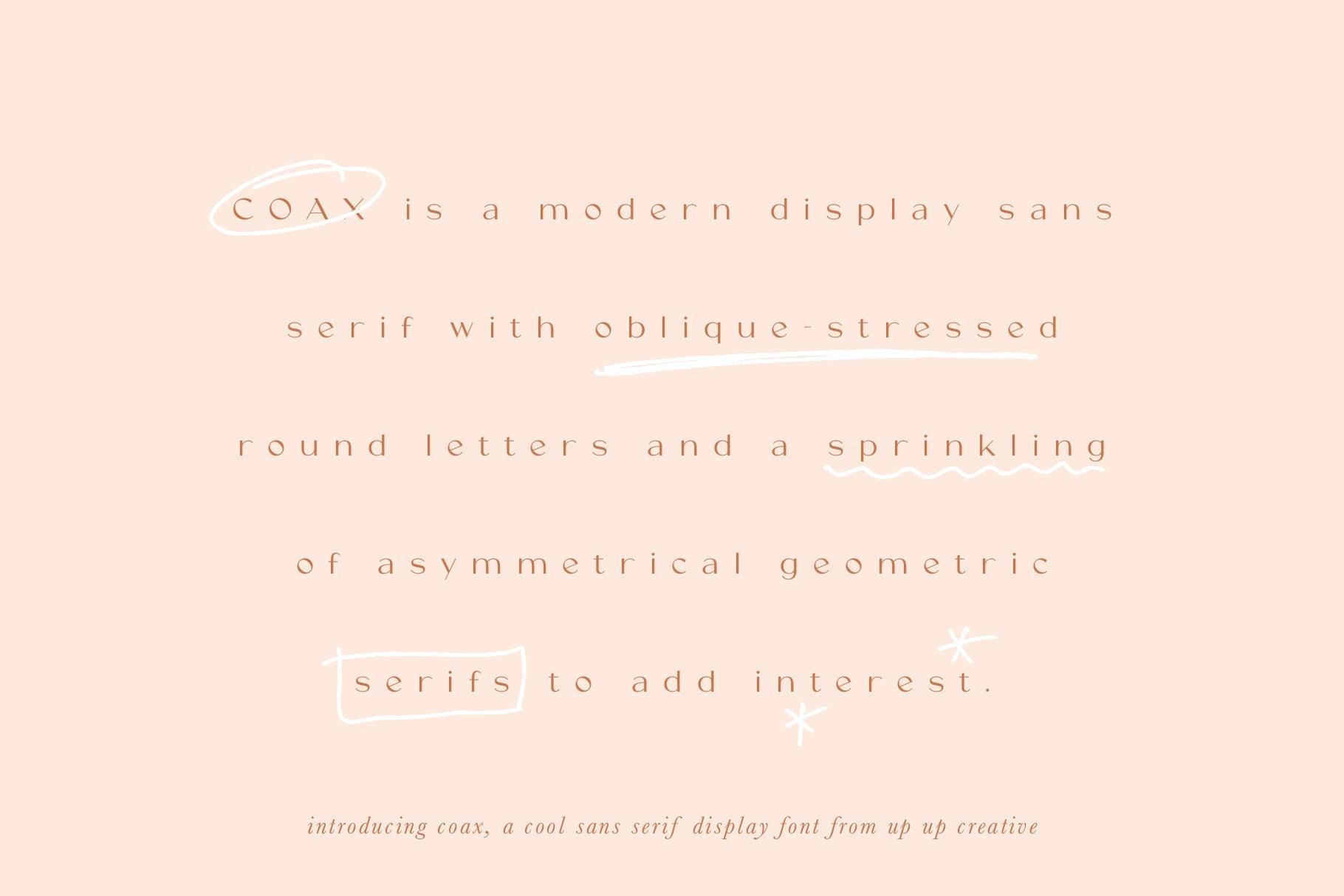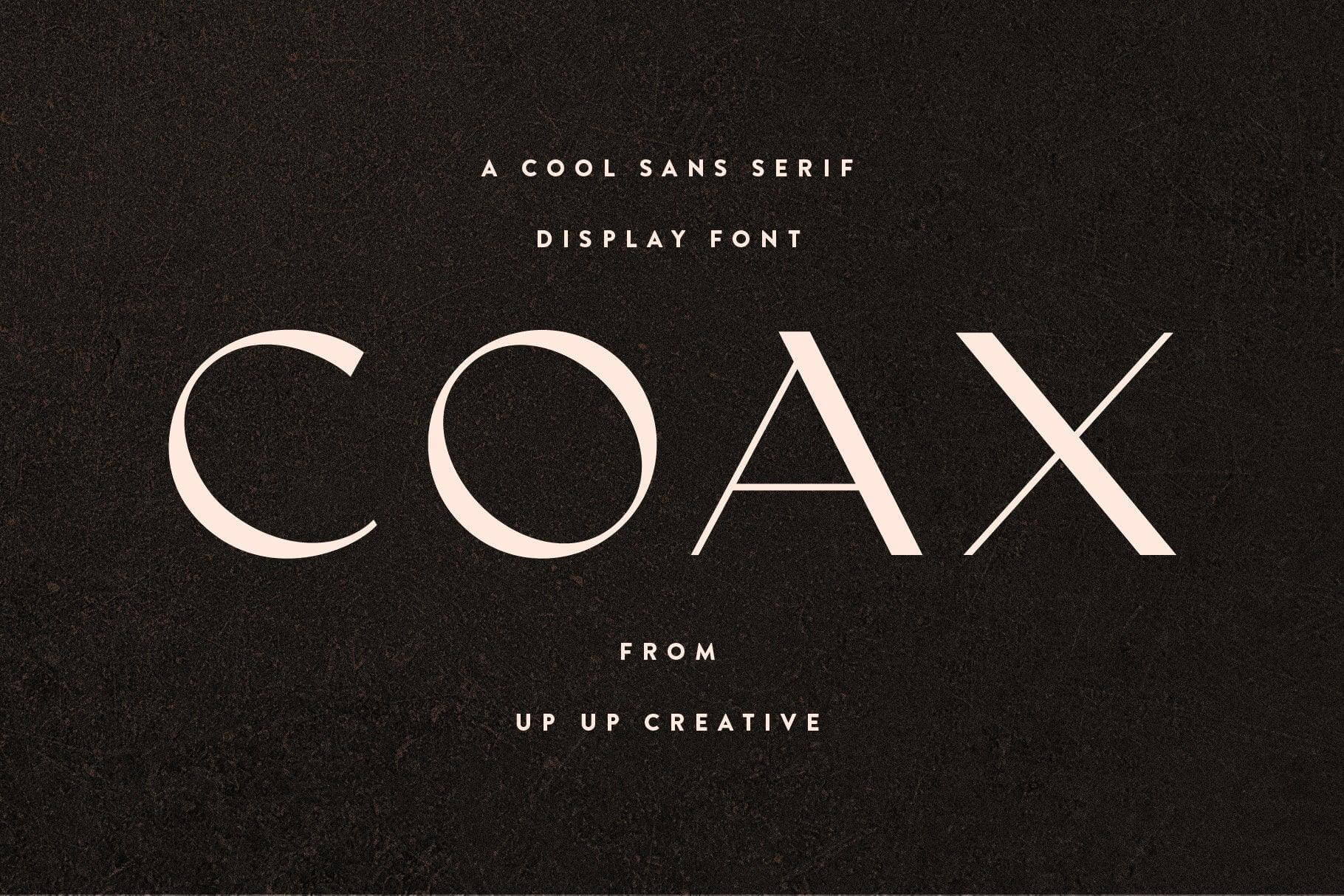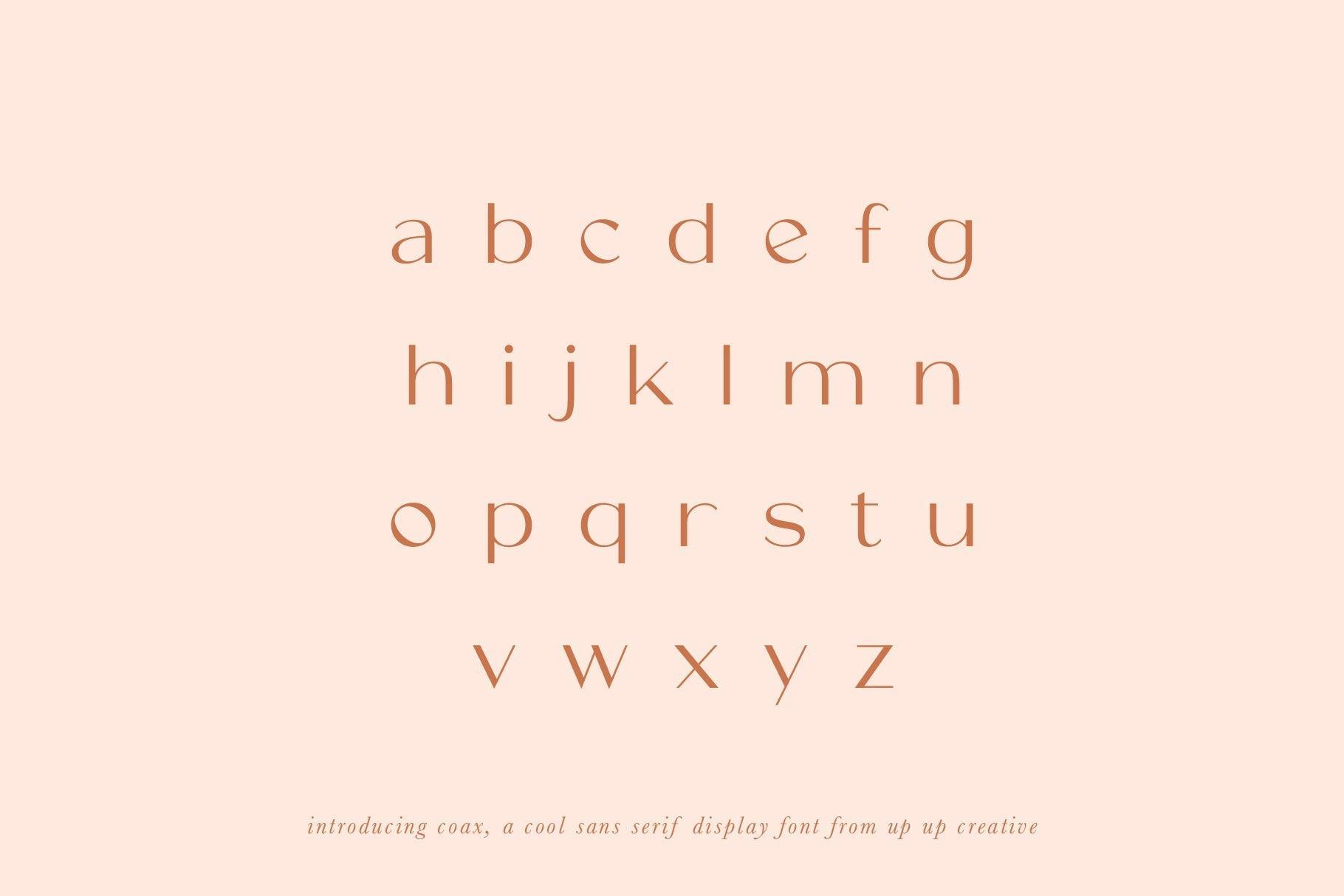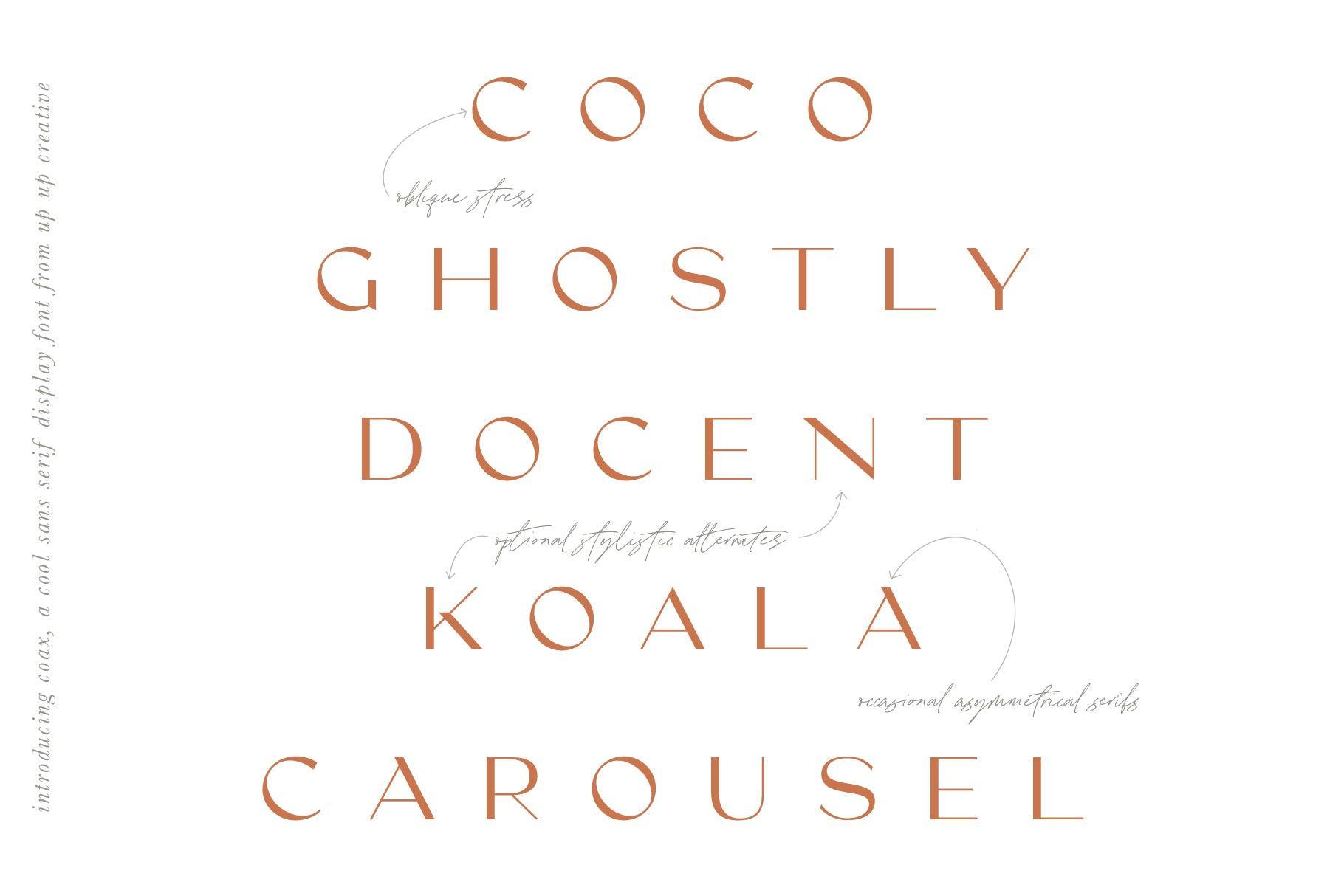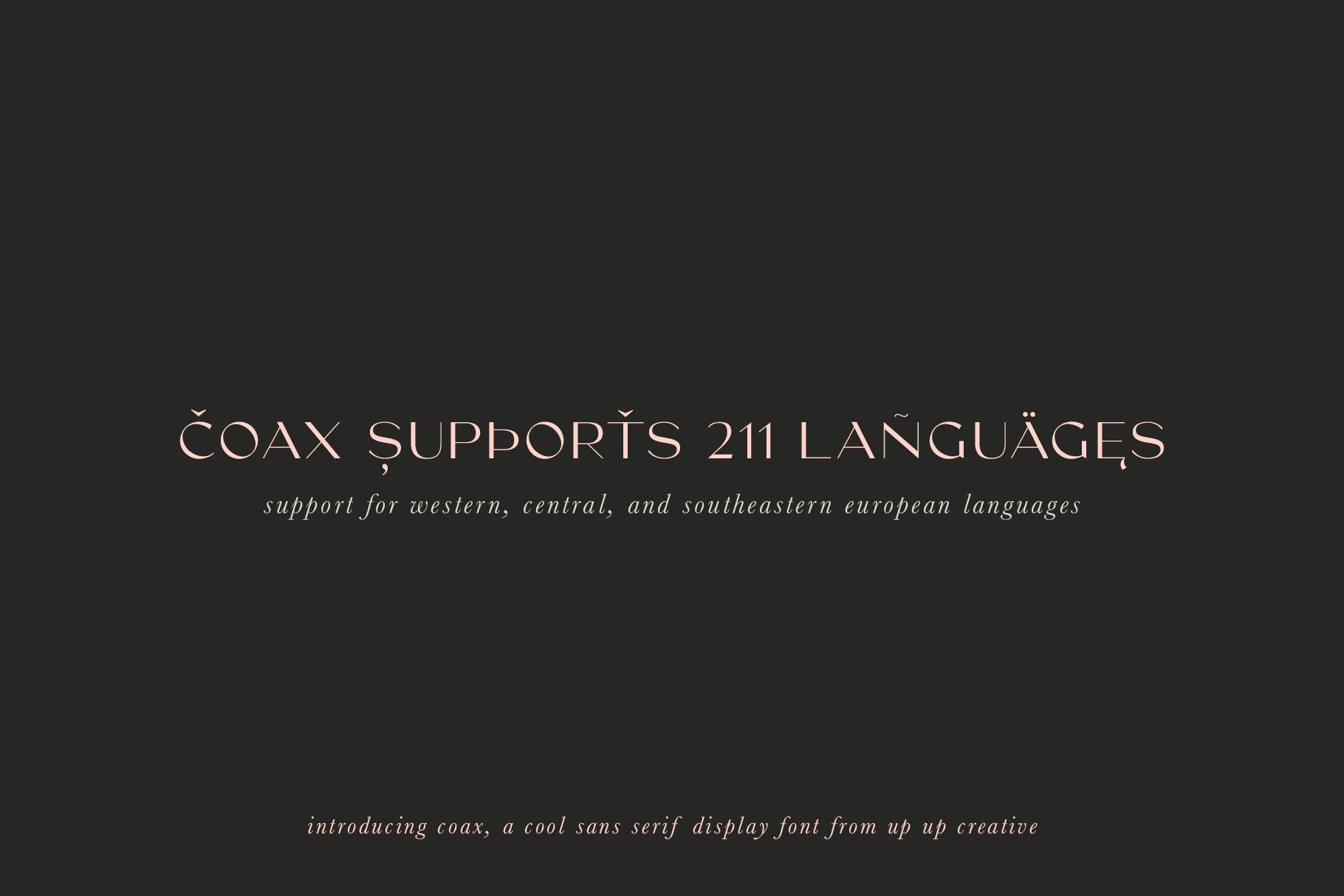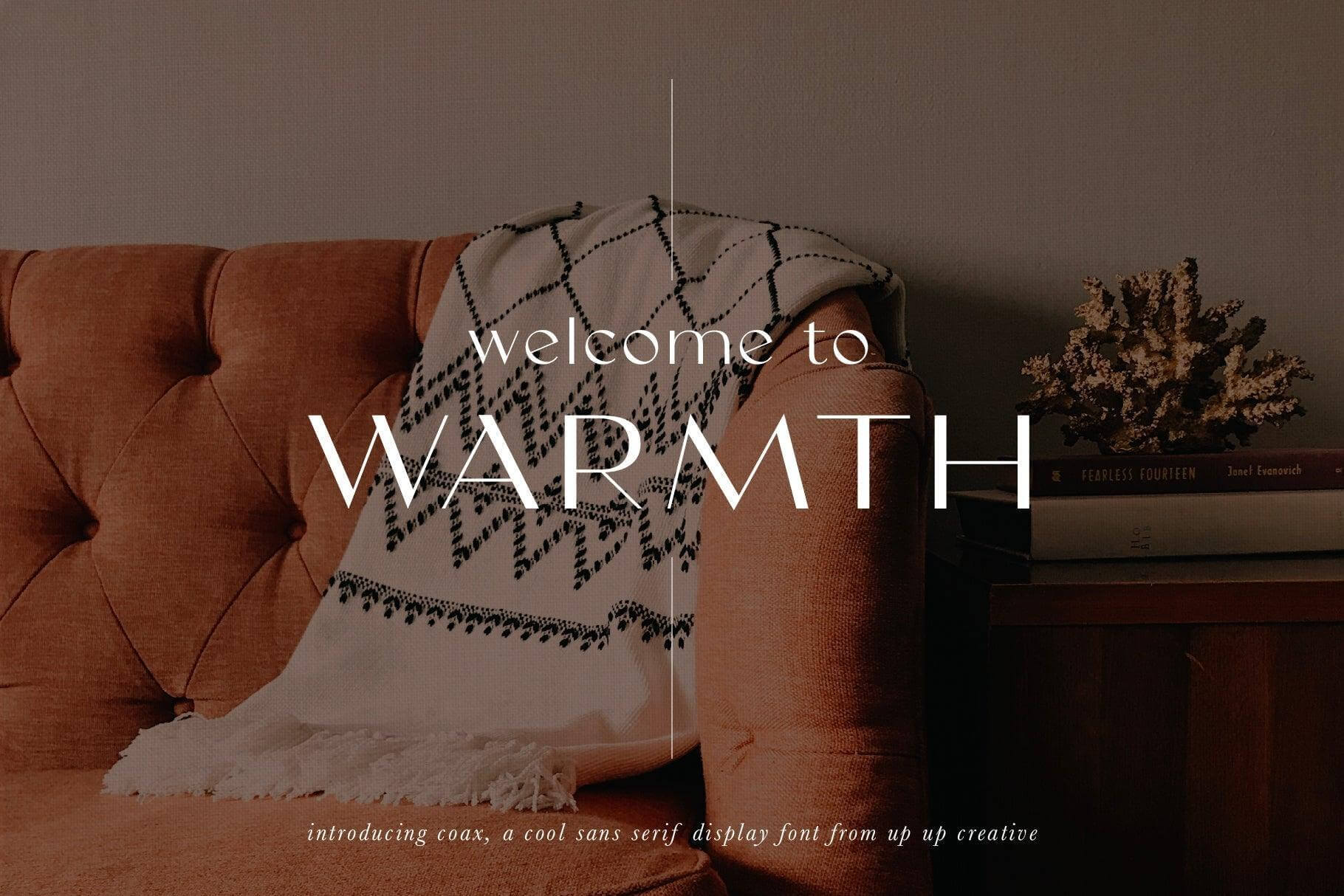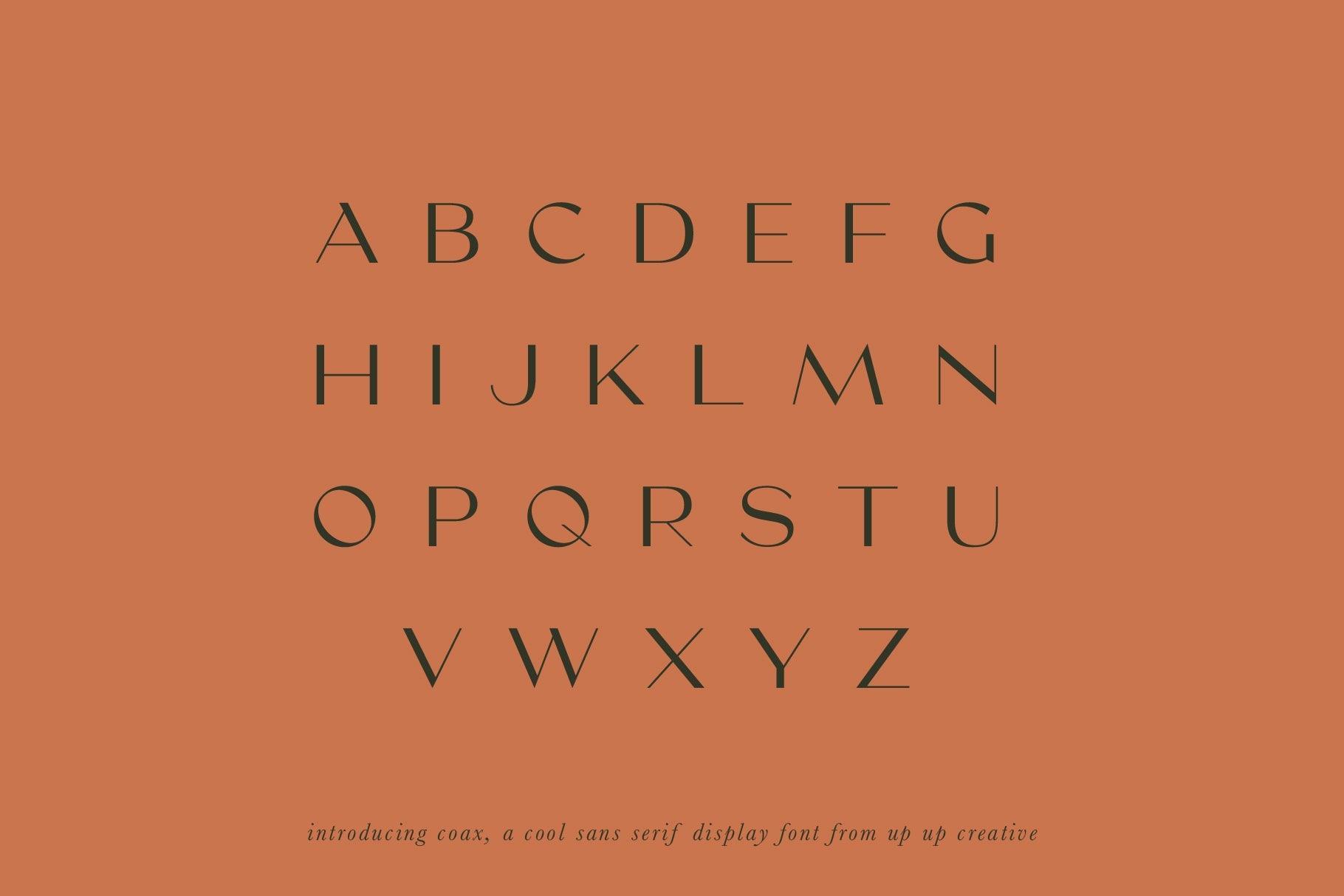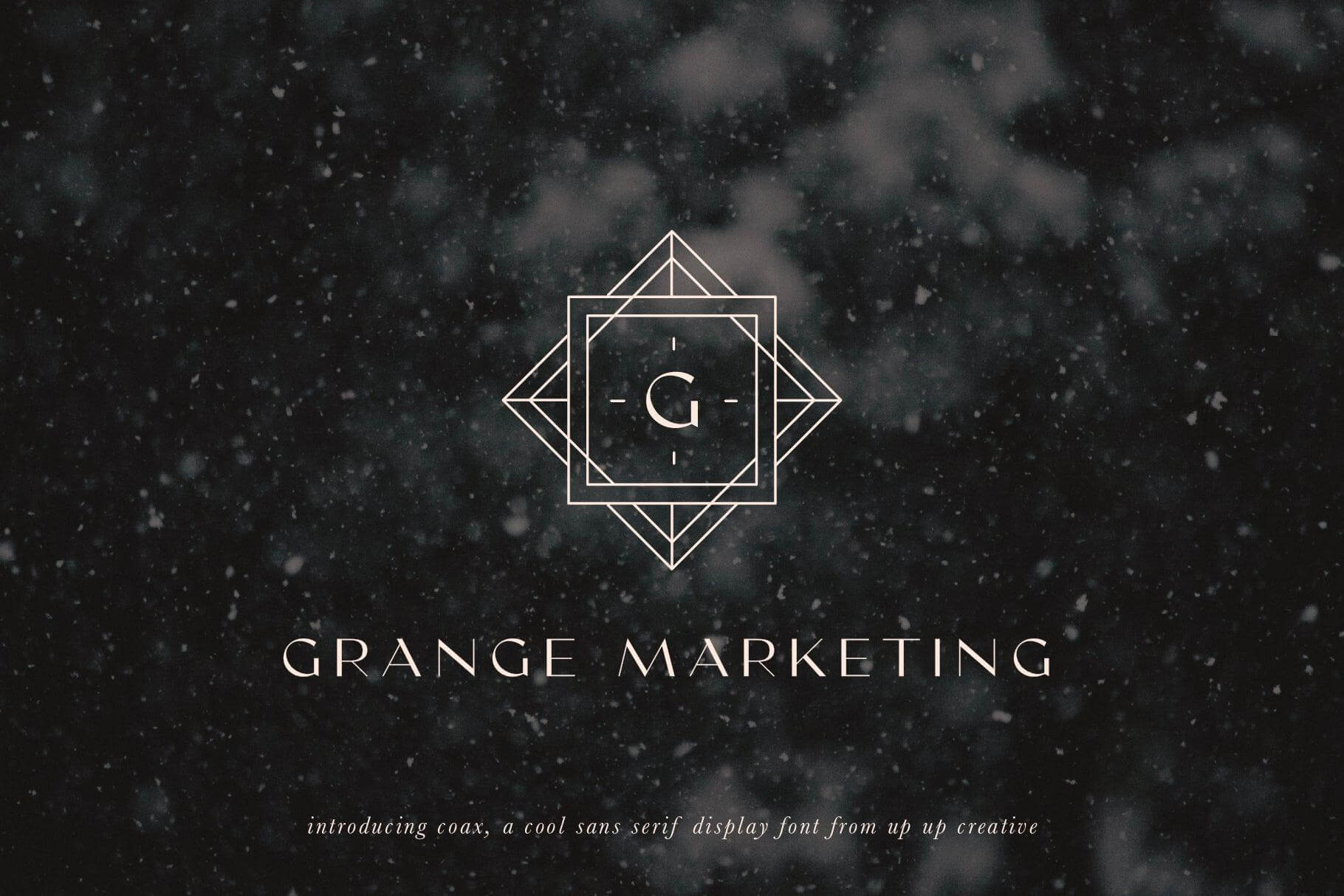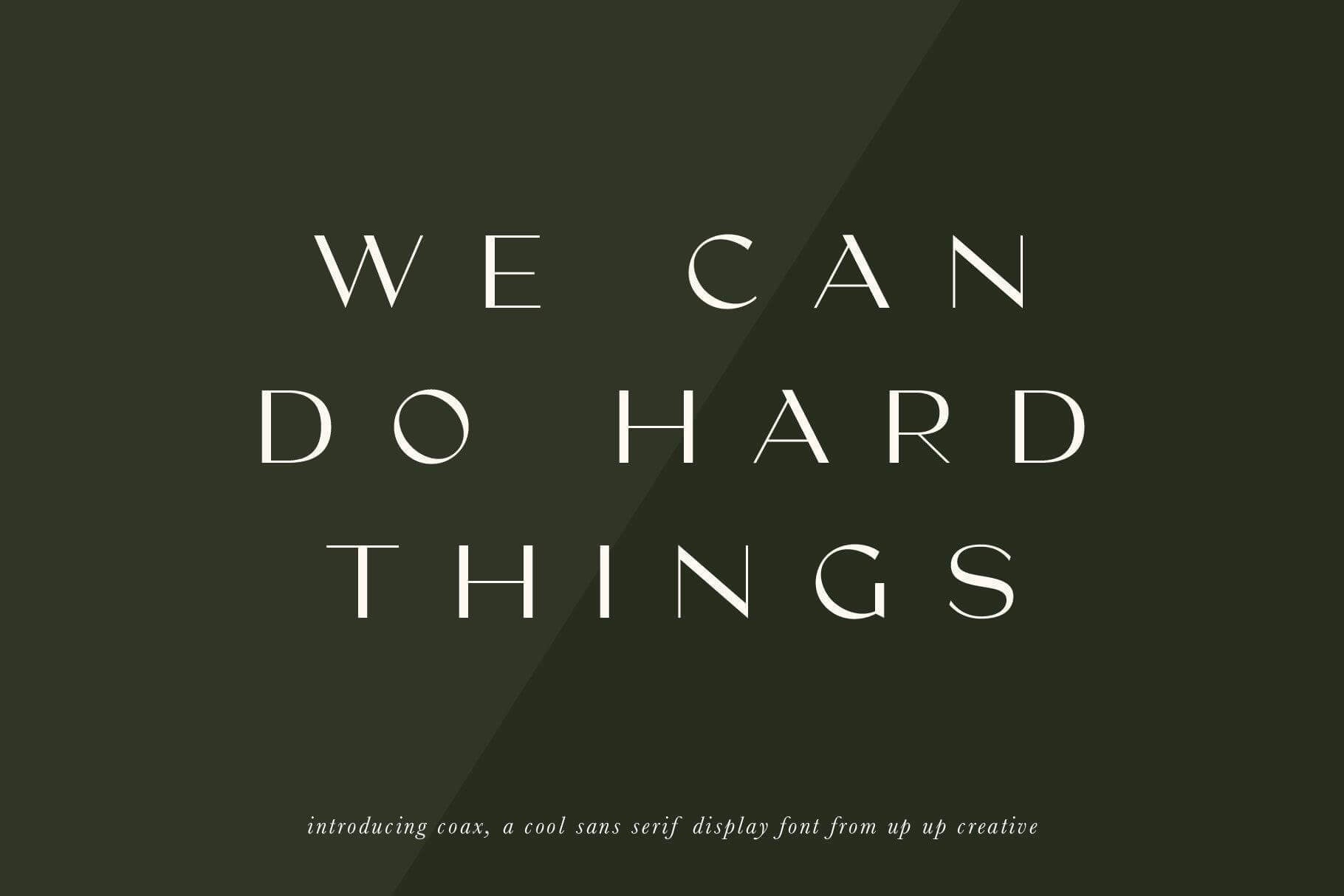
Coax Sans Serif Display Font
Coax is a cool (mostly) sans serif display font with high-end details like oblique-stressed round letters and a sprinkling of asymmetrical geometric serifs. Coax is destined for your next branding, advertising, or editorial design project. Also great for headlines, monograms, logos, wedding invitations, and more.
Coax includes the following OpenType features:
- character variants
- localized forms (multi-language and multi-currency support)
- ordinals and superscripts
- standard and discretionary ligatures
- stylistic sets
Includes 40 ligatures
- Includes 529 glyphs
- 1 Style, 1 Weight